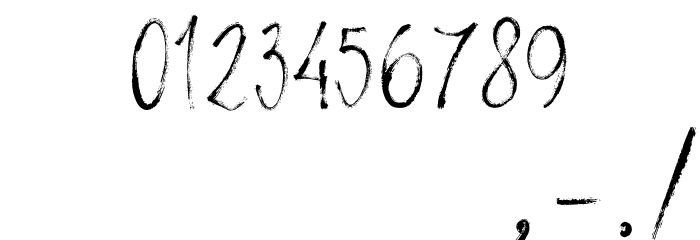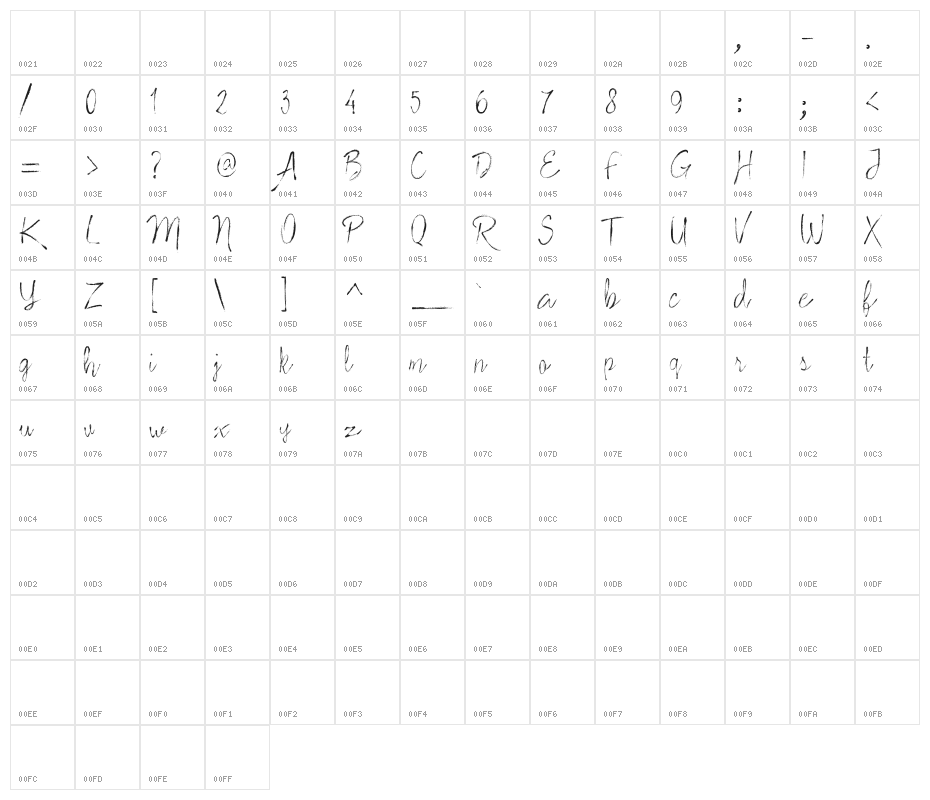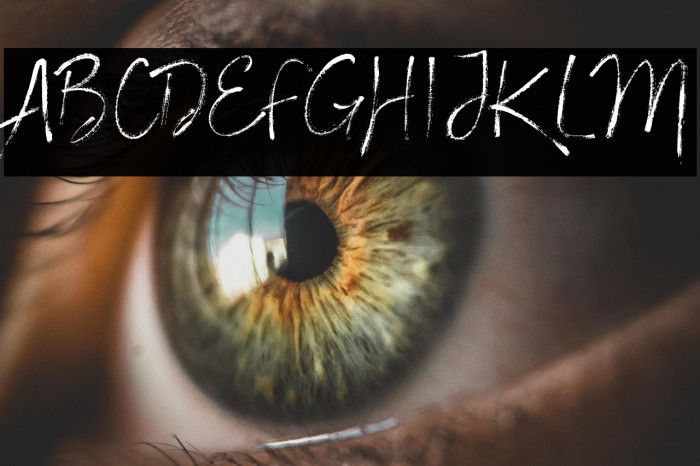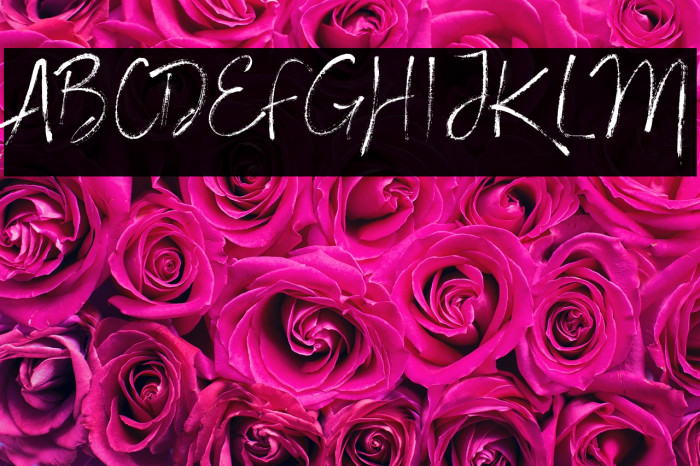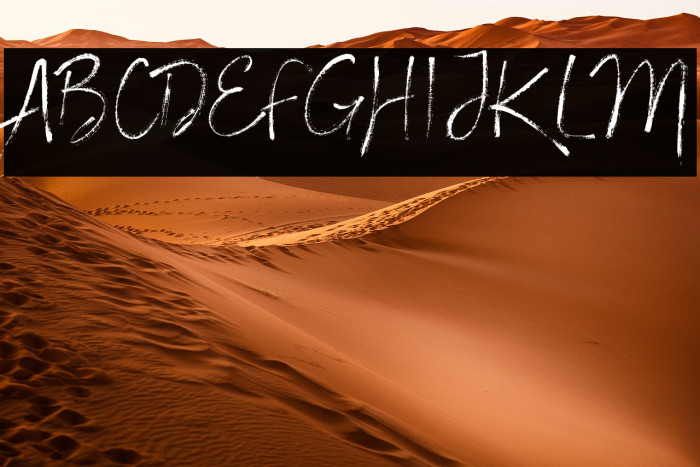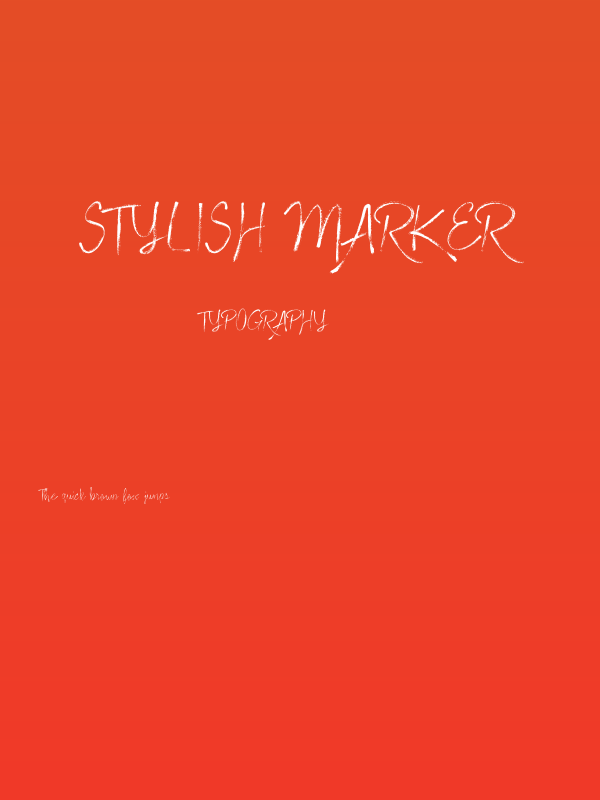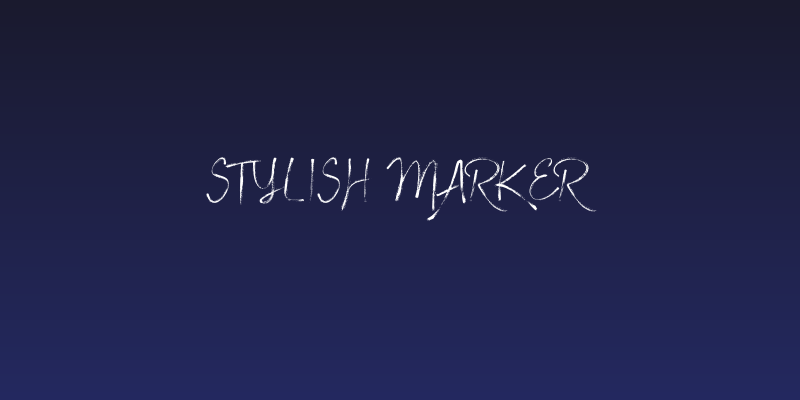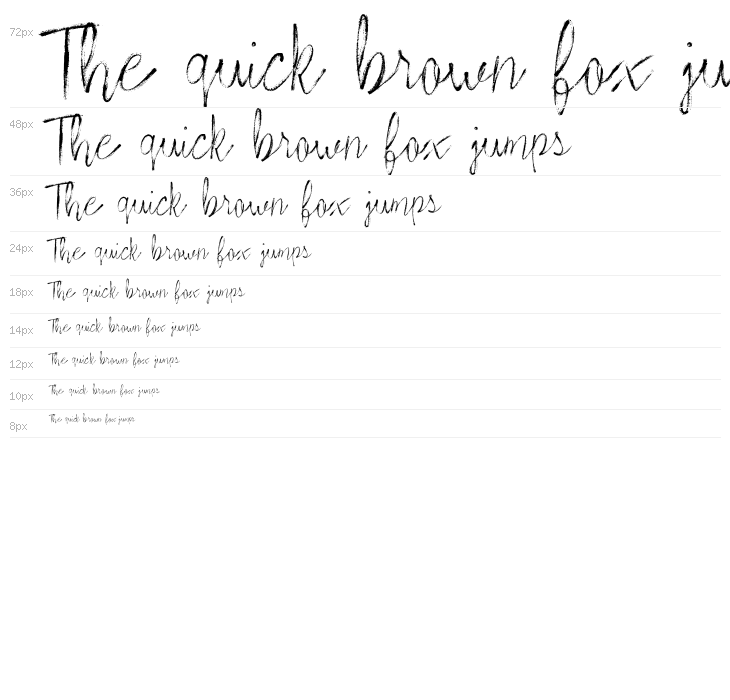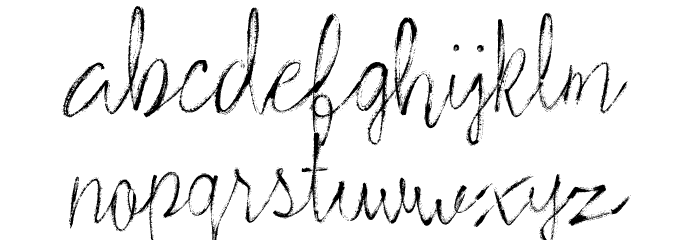
Stylish Marker Font
Stylish Marker Description
This font exudes a casual and artistic flair, reminiscent of hand-drawn marker strokes. The letters are fluid and dynamic, with a natural, slightly rough texture that adds a sense of authenticity and creativity. The uppercase characters are bold and expressive, while the lowercase letters maintain a consistent flow, enhancing readability. The numerals are clear and distinct, matching the overall style of the alphabet. Special characters are crafted with the same attention to detail, ensuring a cohesive look across all glyphs. This font is perfect for projects that require a personal touch, such as invitations, posters, or branding materials.
Overall StyleCasual, Artistic
Use CaseHeadlines, Logos, Creative projects
Proposed ProjectsIdeal for invitations, posters, branding, and any project needing a personal touch.